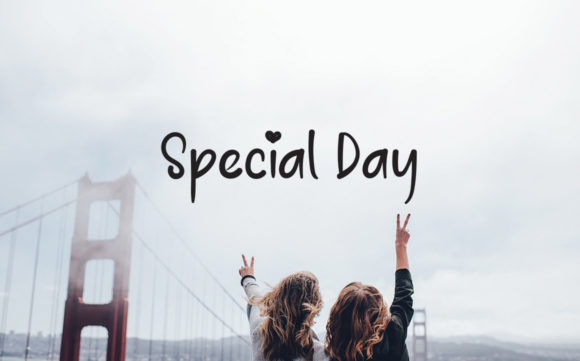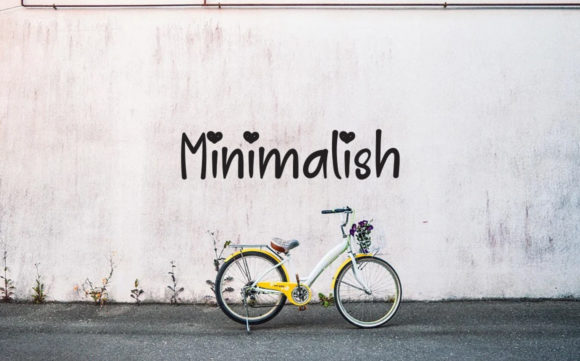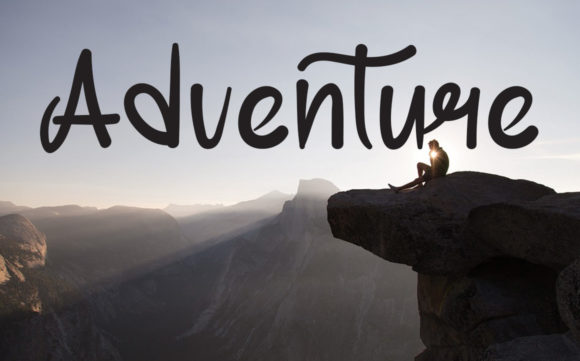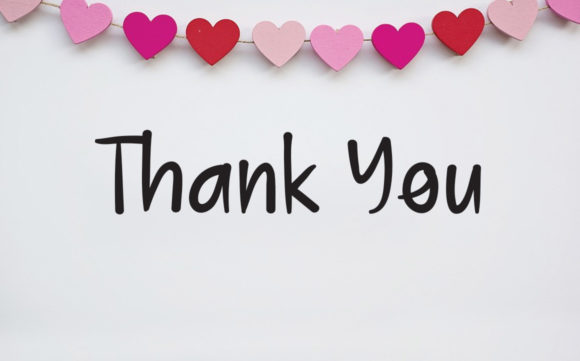
California Font
About California Font
California is a simple, quirky and adaptable handwritten font. Its informal style and casual vibe will make this font a go-to choice for each of the creations that require a relaxed touch.